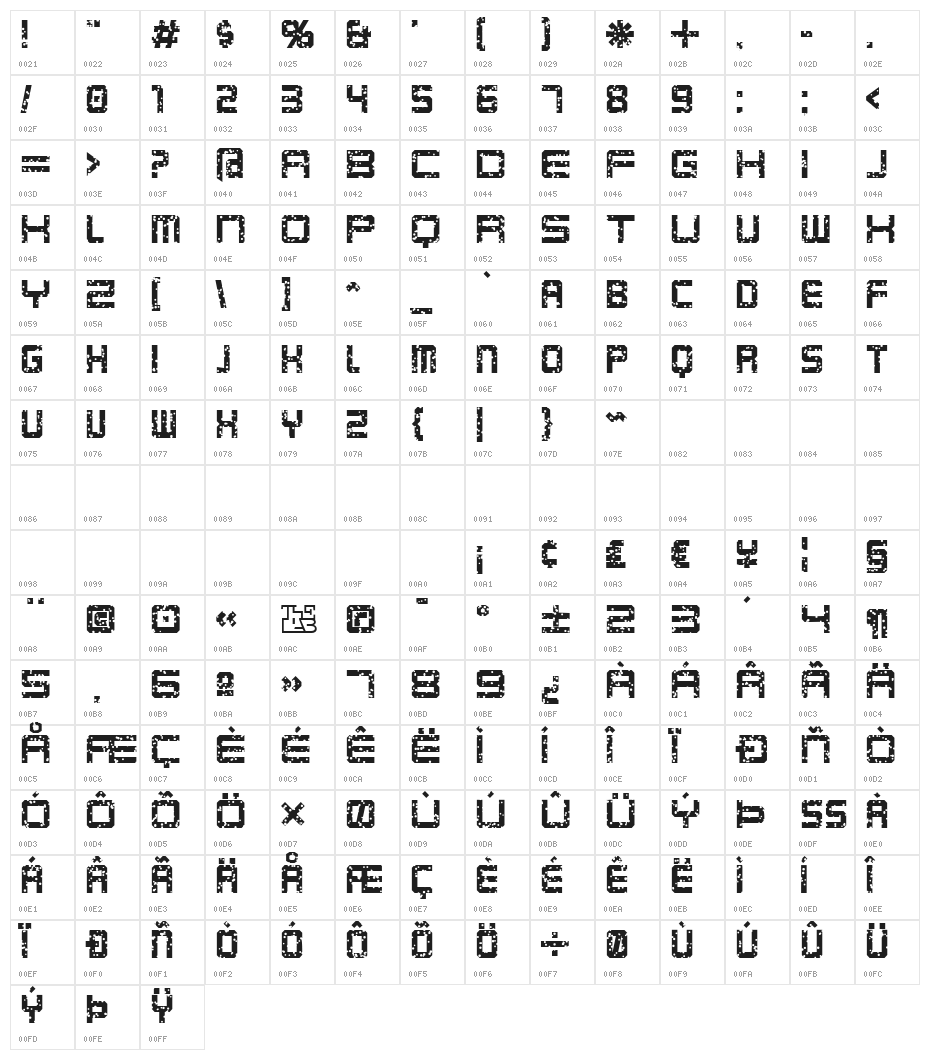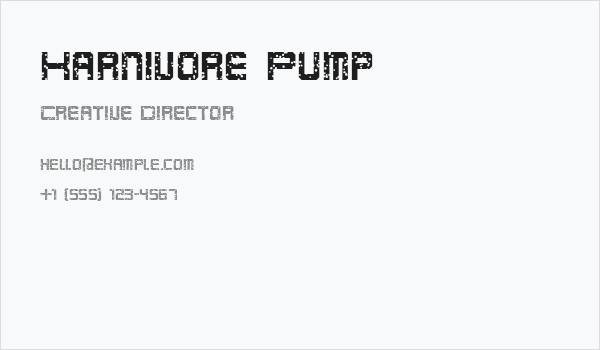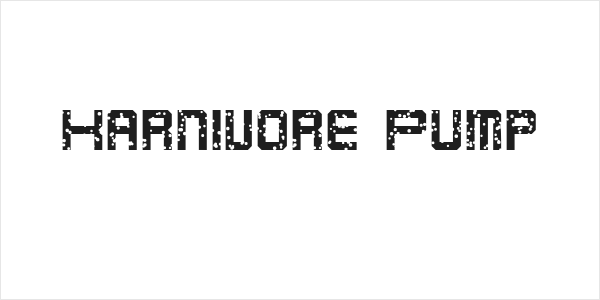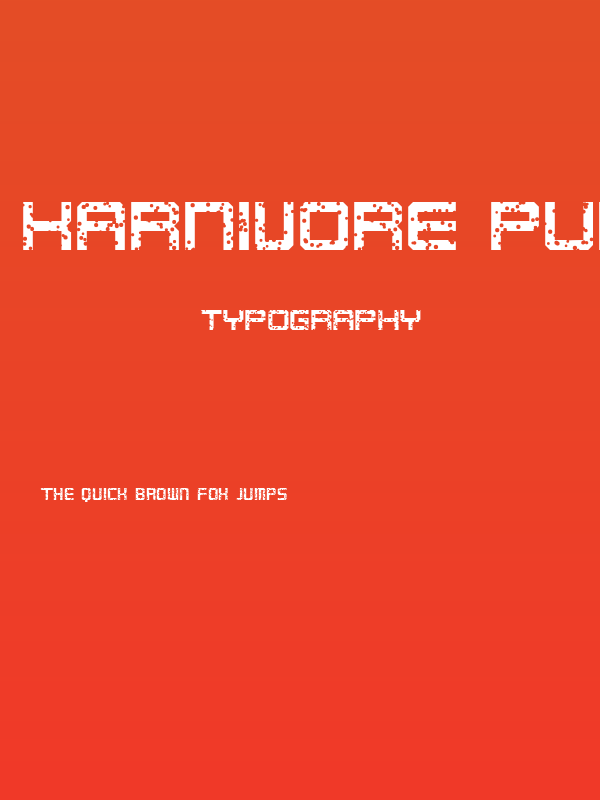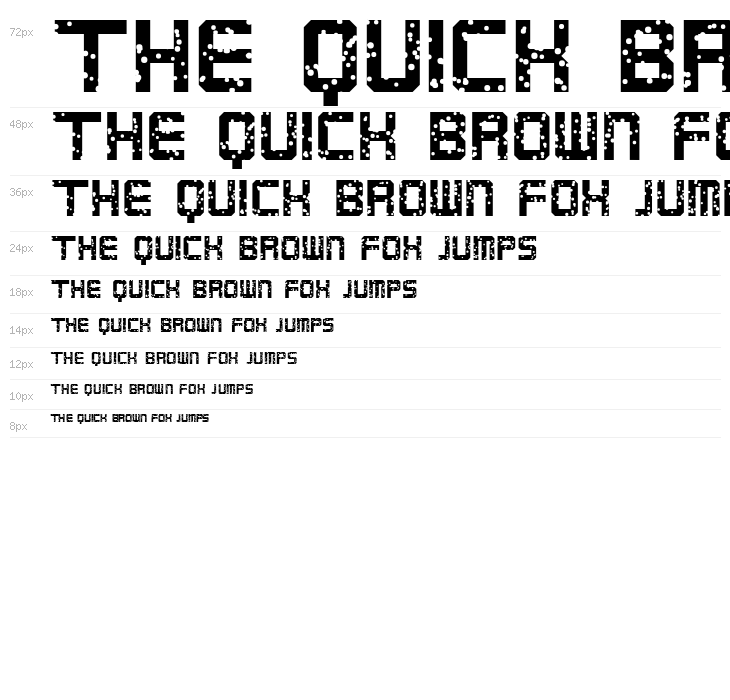
Karnivore Pump Font
Karnivore Pump Description
This font features a bold, decorative style with a unique, distressed texture that resembles a worn or eroded surface. The characters are blocky and geometric, with a consistent height and width that gives them a uniform appearance. The distressed effect is achieved through irregular, scattered holes and cuts within each letter, adding a rugged and edgy feel. This font is highly stylized, making it suitable for attention-grabbing designs. The uppercase and lowercase letters maintain the same height, contributing to its bold and impactful look. The numbers and special characters follow the same design principles, ensuring consistency across all elements.
| Proposed Projects | Ideal for posters, album covers, video game graphics, and branding that requires a bold, edgy look. |